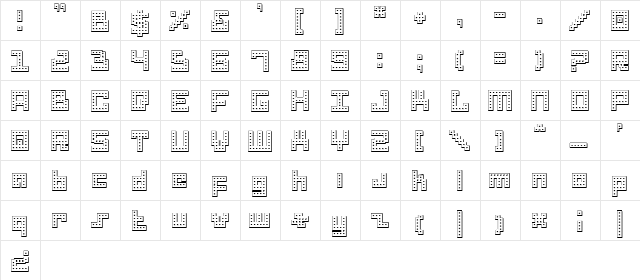
Drid Herder Outline Outline
Design Context for Drid Herder Outline Typeface
Drid Herder Outline is built around its visual character rather than neutral utility — its distinctive forms are designed to make an impression at display sizes.
Font Pairing: Pair with a clean neutral sans-serif for body copy to let Drid Herder Outline's character lead without overwhelming the composition.
Pro Tip: Treat Drid Herder Outline as the centrepiece of your typographic hierarchy. One strong heading set in a decorative face can carry an entire layout.